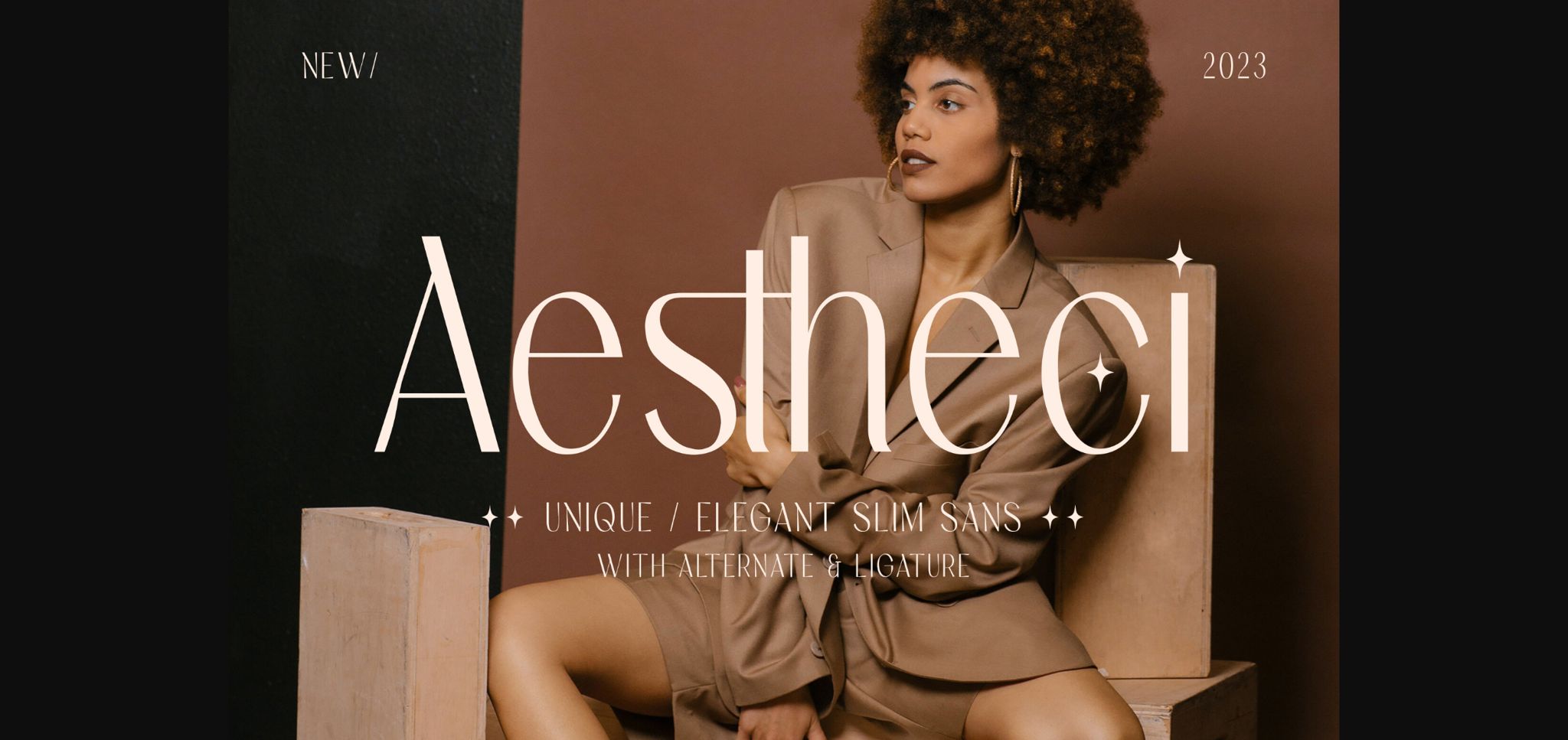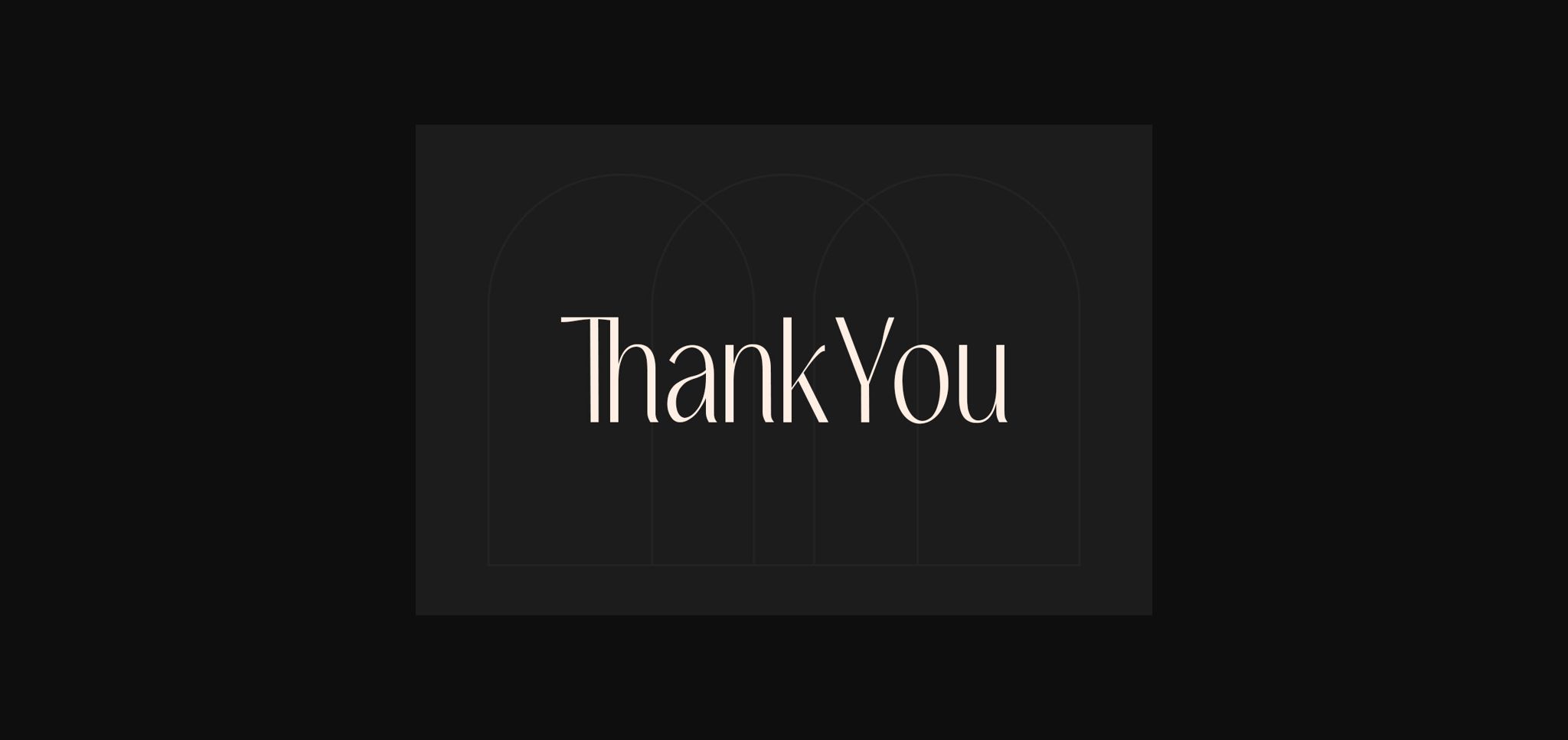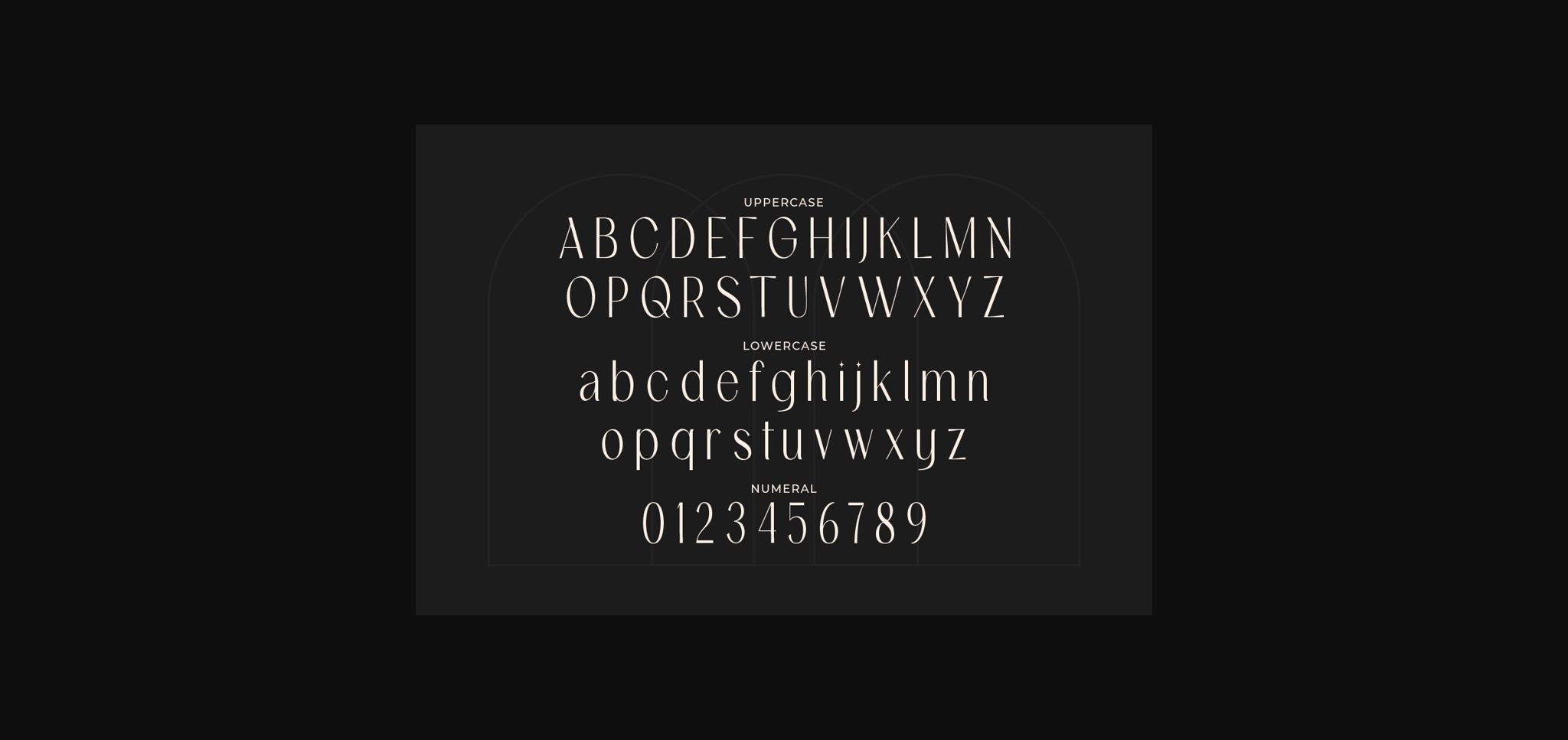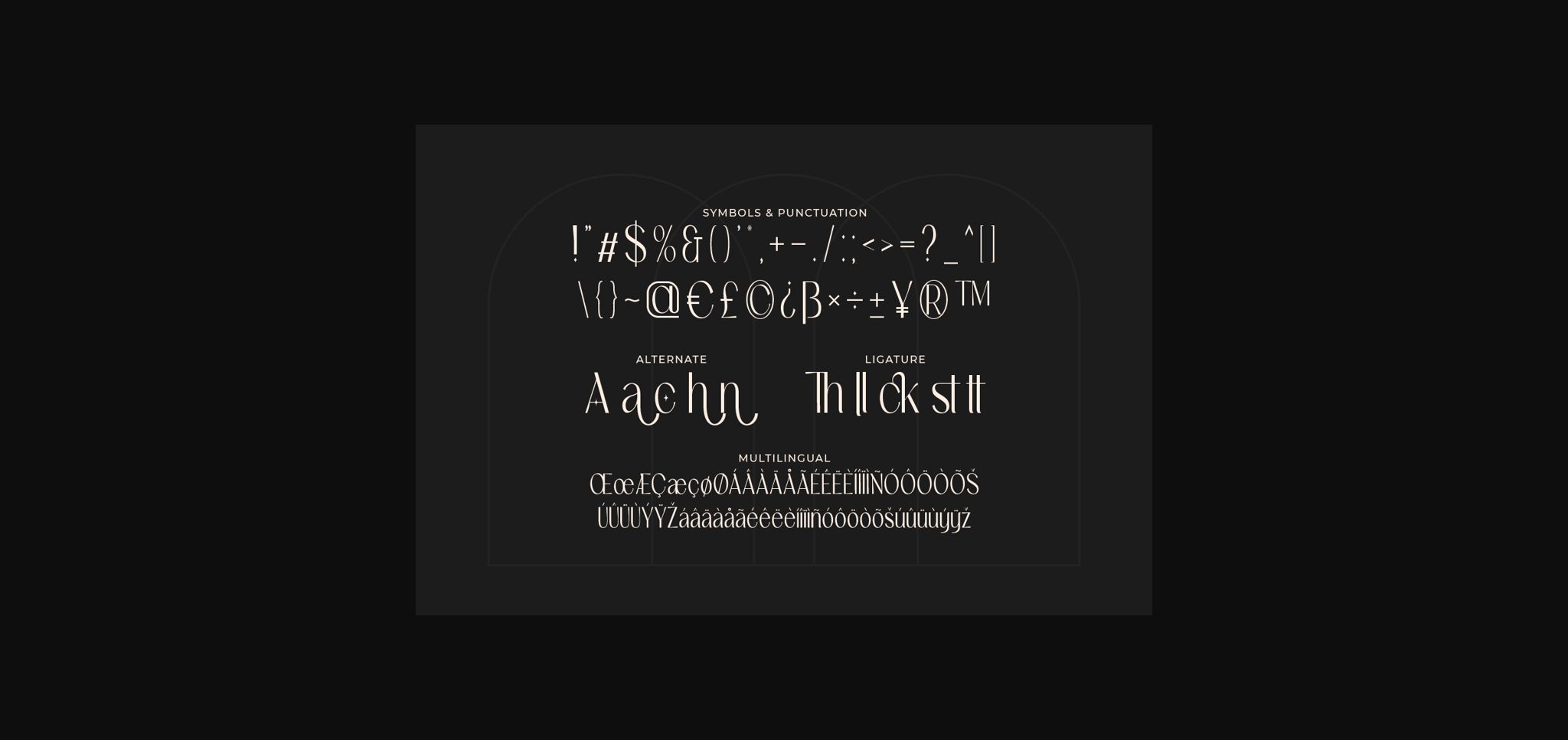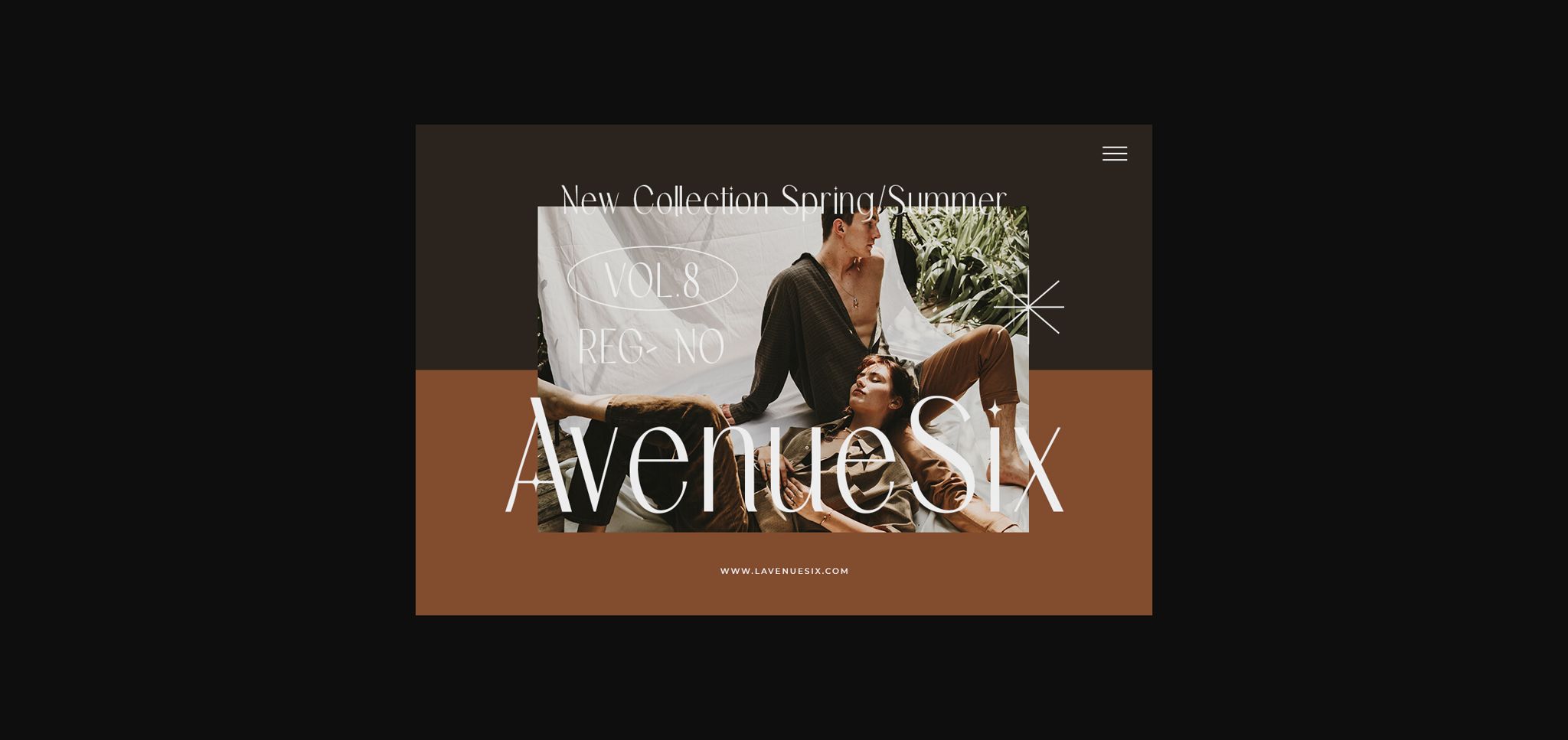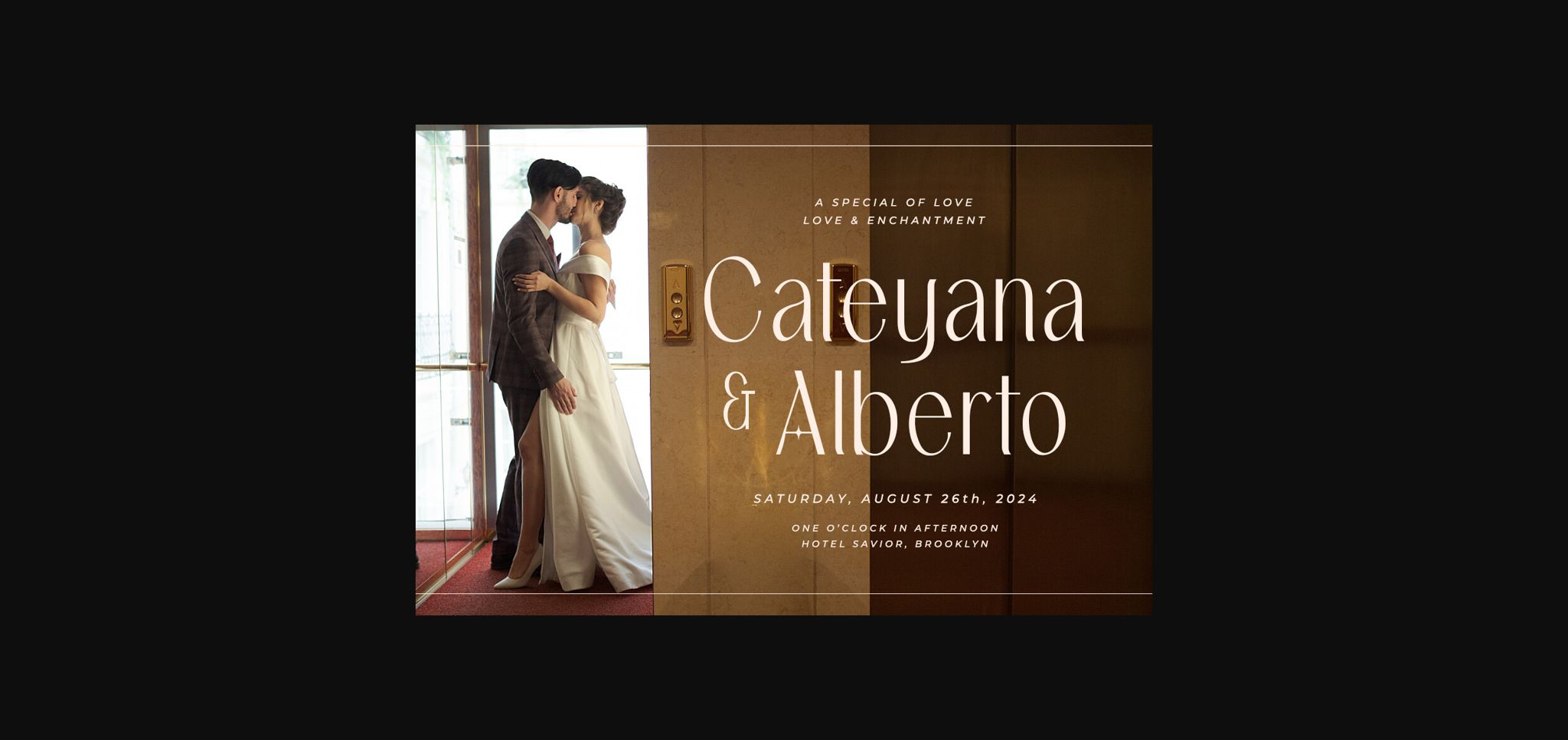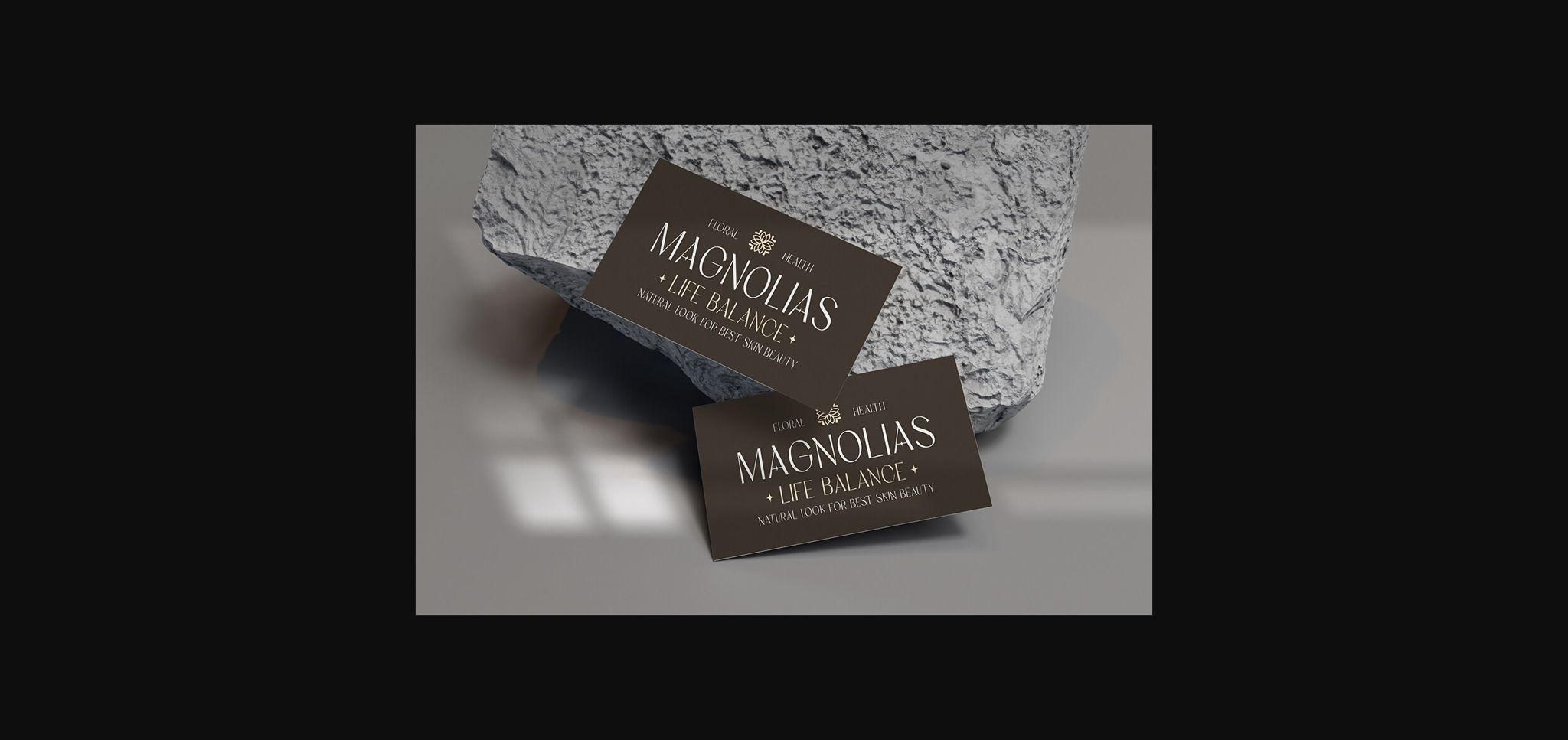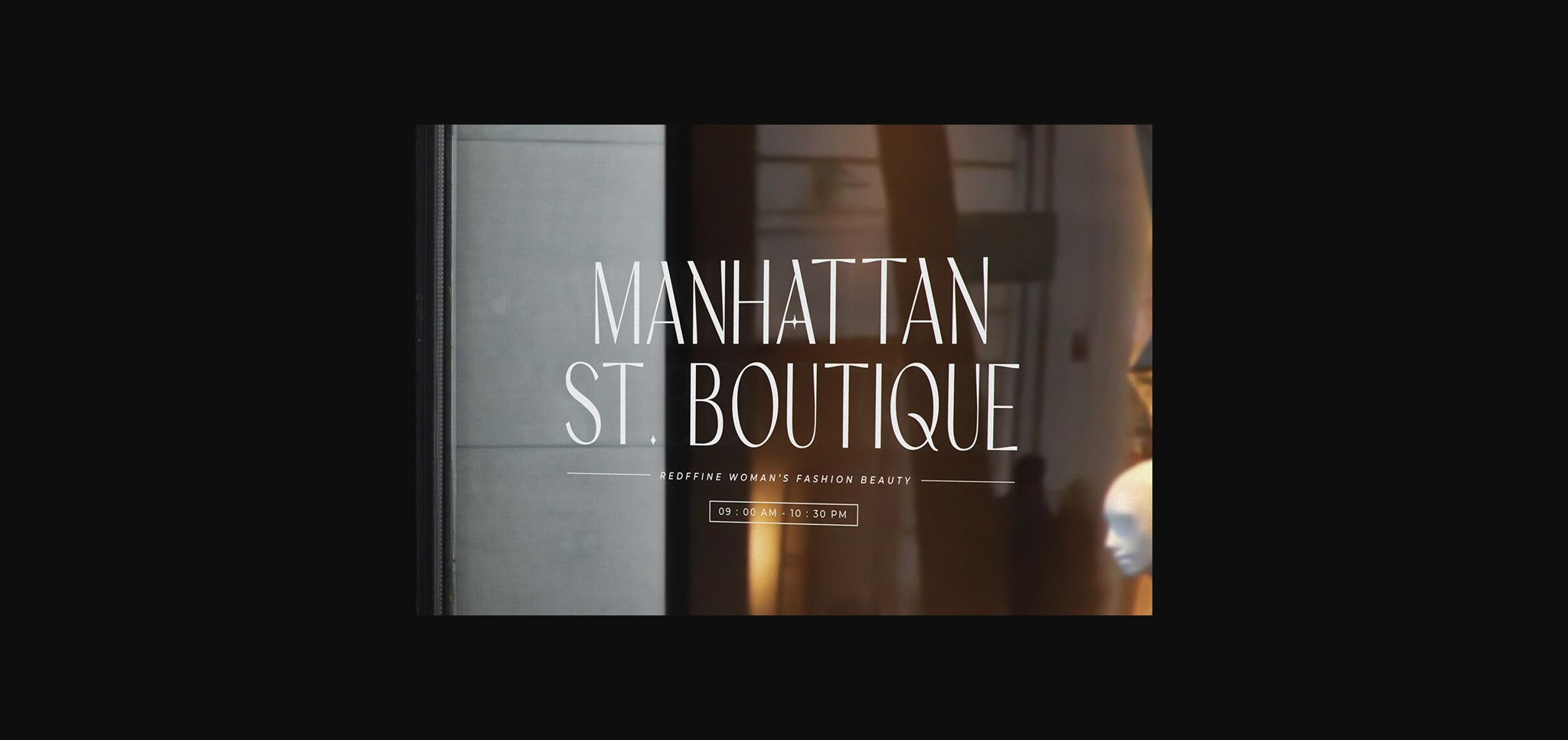
Aestheci Font
About Aestheci Font
Elevate your designs with “Aestheci” – a unique and elegant slim sans-serif font that exudes modern sophistication and versatility.
With its clean and distinctive letterforms, “Aestheci” adds a touch of refined simplicity to any project. Each character is meticulously crafted to strike the perfect balance between uniqueness and readability, making it ideal for contemporary branding, minimalistic posters, sleek editorial layouts, and more.
Embrace the modern charm of “Aestheci” as it effortlessly enhances your designs. Whether you’re creating stylish logos, minimalist web design, elegant invitations, or sleek social media graphics, this font will captivate your audience with its elegant and slim style.
Step into a world of contemporary typography with “Aestheci” and let your designs communicate with finesse and versatility.